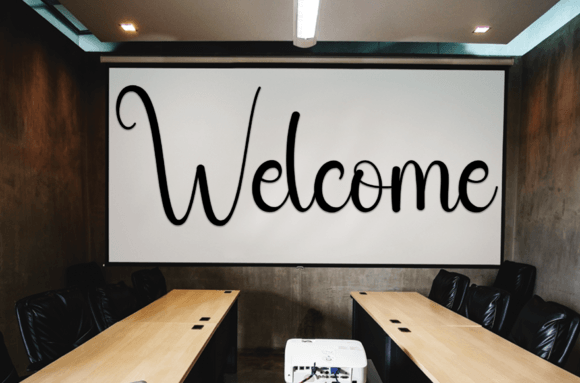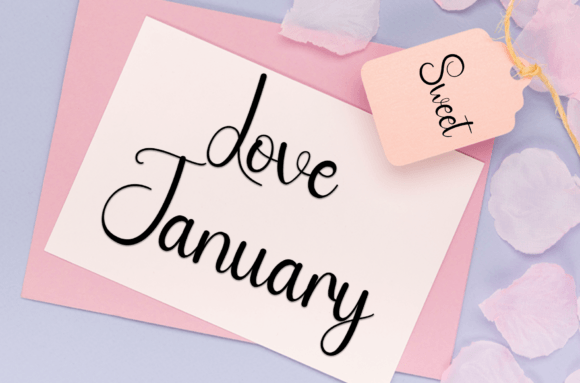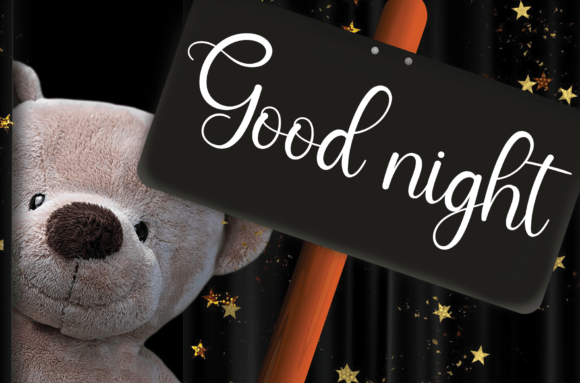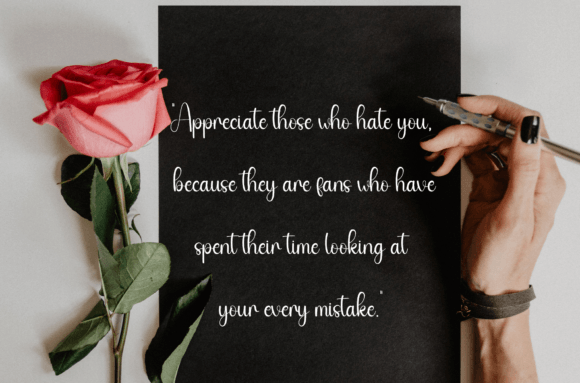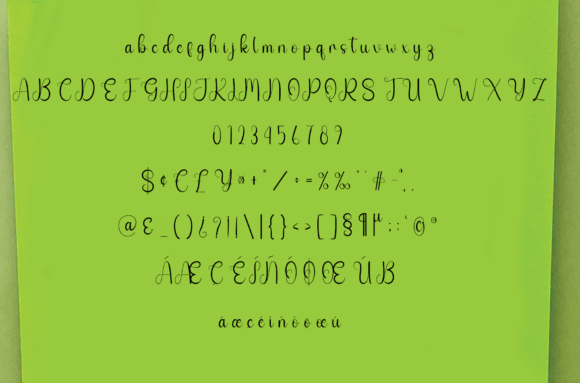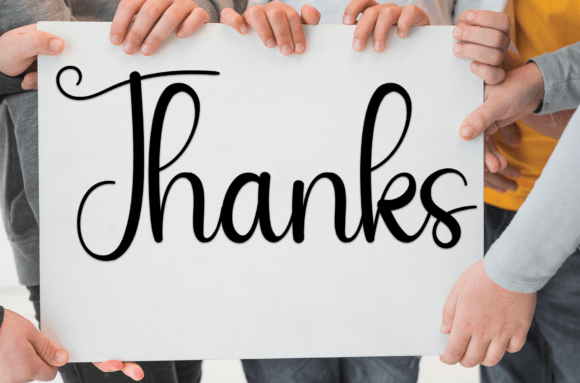
Introducing Handsome Font: The Sweet and Friendly Handwritten Font
Are you looking for a font that adds a touch of fun and whimsy to your designs? Look no further than Handsome Font, a sweet and friendly handwritten font that’s perfect for a variety of creative projects. In this article, we’ll take a closer look at Handsome Font, its features, and how you can use it to elevate your designs.
What is Handsome Font?
Handsome Font is a beautiful, handwritten font that’s designed to bring a smile to your face. It’s a cute and fun font that’s ideal for writing wedding invitations, cards, or any other design that might need a playful touch. With its friendly and approachable feel, Handsome Font is sure to capture the hearts of your audience.
Key Features of Handsome Font
- Handwritten style: Handsome Font has a beautiful, handwritten style that’s perfect for adding a personal touch to your designs.
- Cute and fun: This font is designed to be playful and fun, making it ideal for designs that require a lighthearted touch.
- Versatile: Handsome Font can be used for a variety of design projects, from wedding invitations to social media graphics.
- Easy to read: Despite its playful style, Handsome Font is easy to read, making it perfect for body text and headings.
Use Cases for Handsome Font
Handsome Font is a versatile font that can be used for a variety of design projects. Here are some use cases to get you started:
- Wedding invitations: Add a touch of romance and whimsy to your wedding invitations with Handsome Font.
- Greeting cards: Use Handsome Font to create fun and playful greeting cards for birthdays, holidays, and other special occasions.
- Social media graphics: Add a playful touch to your social media graphics with Handsome Font.
- Branding and packaging: Use Handsome Font to create a friendly and approachable brand identity.
Tips for Using Handsome Font
Here are some tips for getting the most out of Handsome Font:
- Pair with a bold font: Pair Handsome Font with a bold font to create a striking contrast.
- Use for headings and titles: Use Handsome Font for headings and titles to add a playful touch to your designs.
- Experiment with colors: Handsome Font looks great in a variety of colors, so don’t be afraid to experiment and find the perfect hue for your design.
Handsome Font is a sweet and friendly handwritten font that’s perfect for adding a touch of fun and whimsy to your designs. With its versatile style and easy-to-read format, Handsome Font is ideal for a variety of creative projects. Whether you’re designing wedding invitations, greeting cards, or social media graphics, Handsome Font is sure to bring a smile to your face and capture the hearts of your audience.